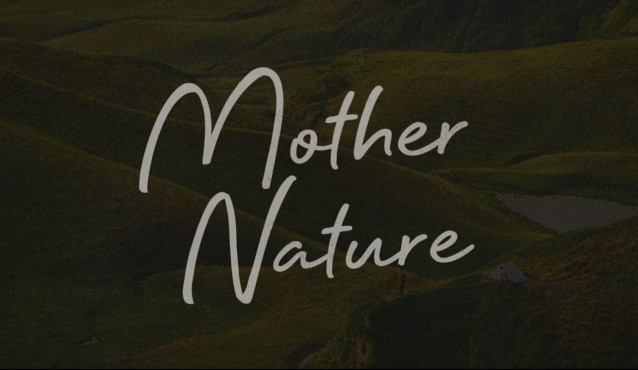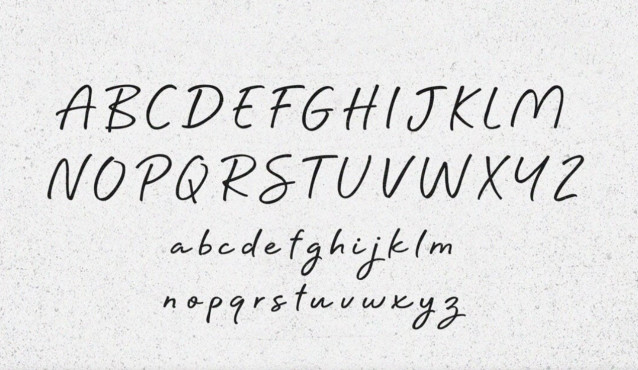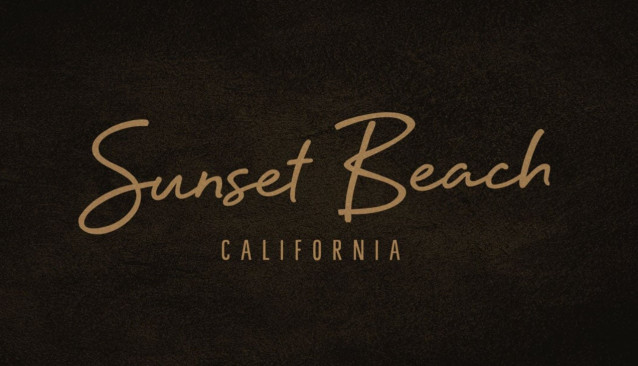
Mother Nature Font
Mother Nature Font – Handwritten Brush Script Font. Nature’s purest ingredients, accentuate your unique charm without the weight of artificial additives. Choose authentic. Choose radiant. Choose Mother Nature. Be beautifully you.